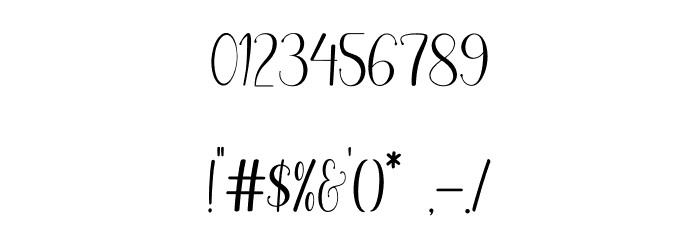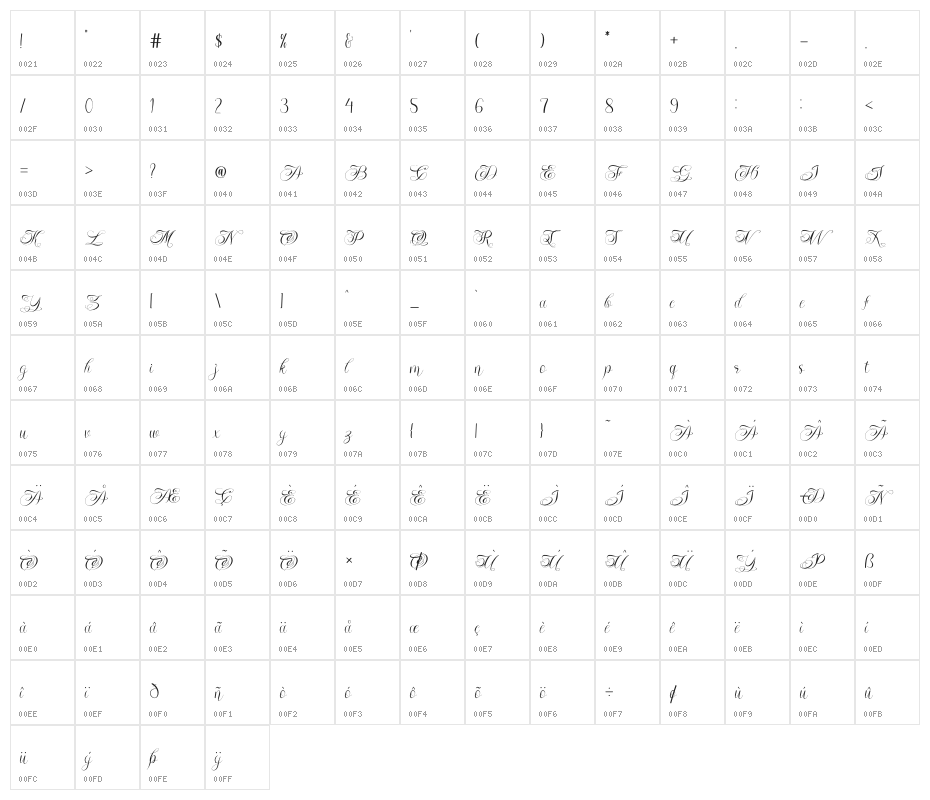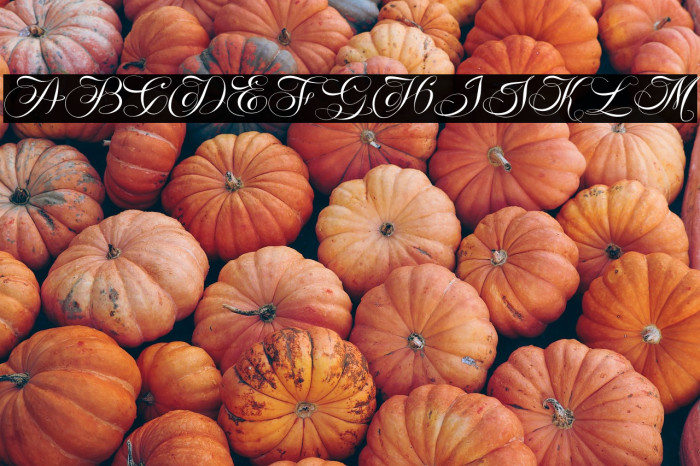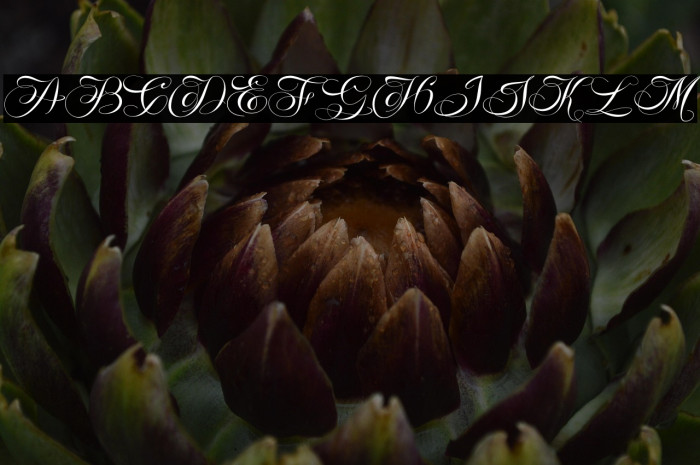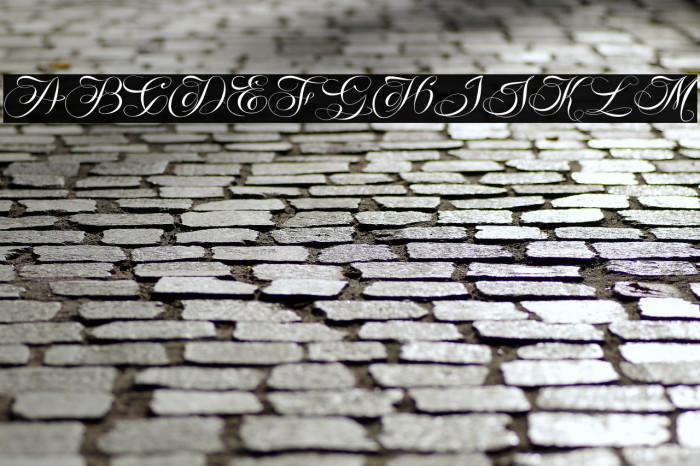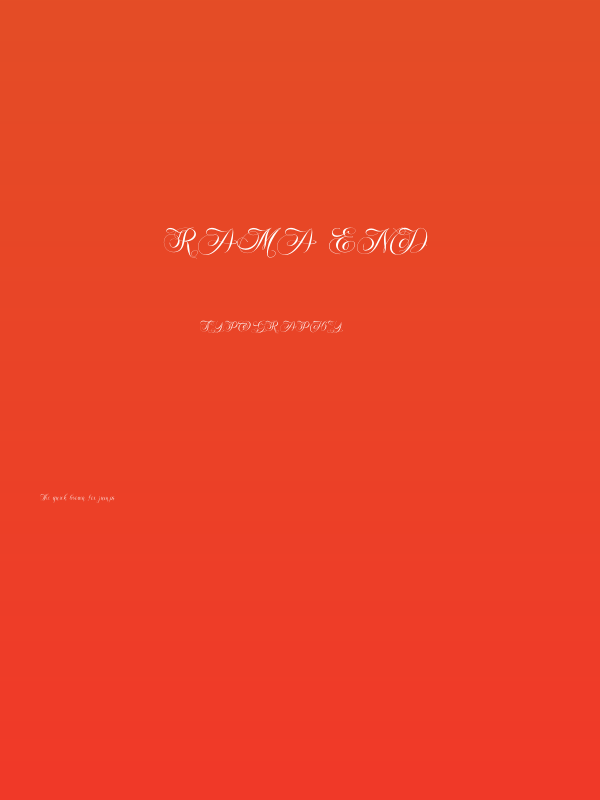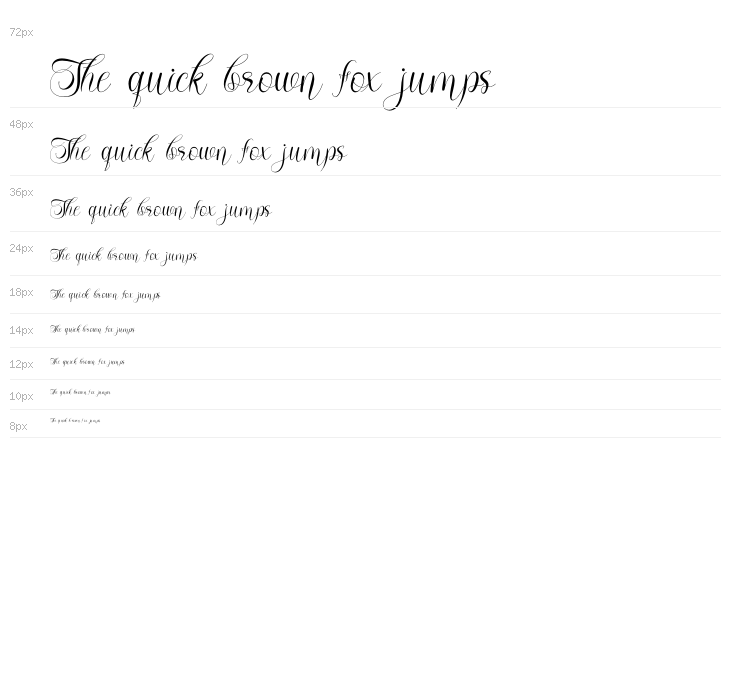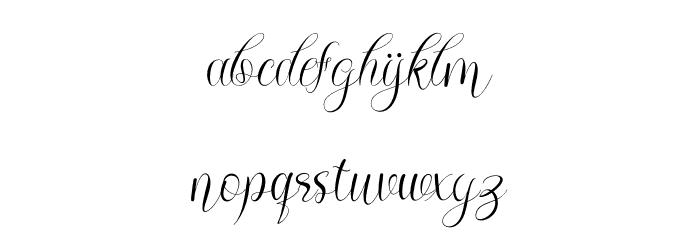
Rama End Font
Rama End Description
This elegant script font features intricate, flowing lines and elaborate swashes, giving it a sophisticated and ornate appearance. The uppercase letters are particularly decorative, with flourishes that extend beyond the baseline and cap height, creating a sense of movement and grace. The lowercase letters maintain a more restrained elegance, with subtle curves and loops. The numerals and special characters are designed to complement the overall style, maintaining the same level of detail and sophistication. This font is ideal for projects that require a touch of luxury and refinement.
| Proposed Projects | Wedding invitations, luxury branding, elegant stationery, and high-end product packaging. |